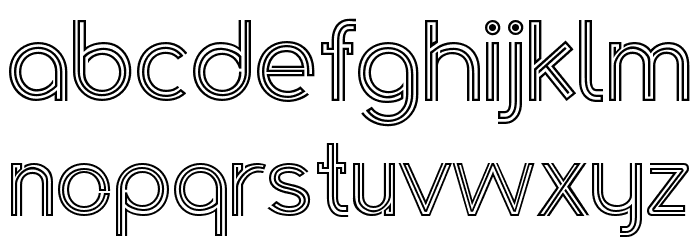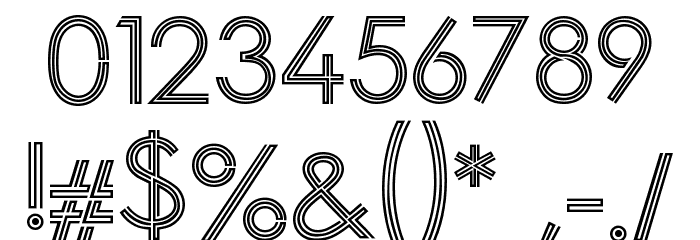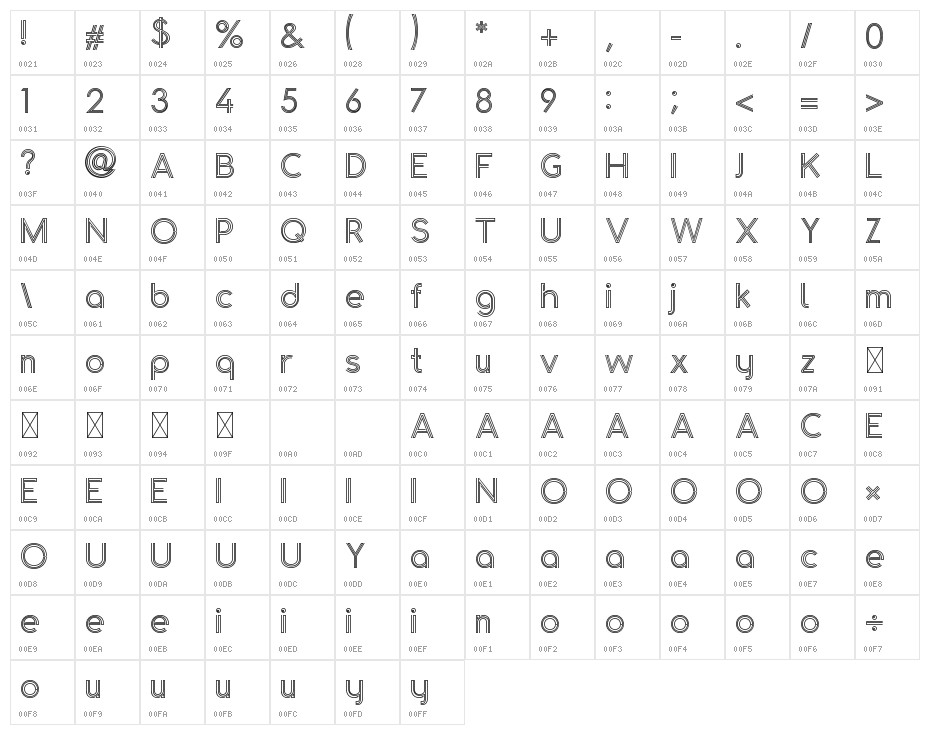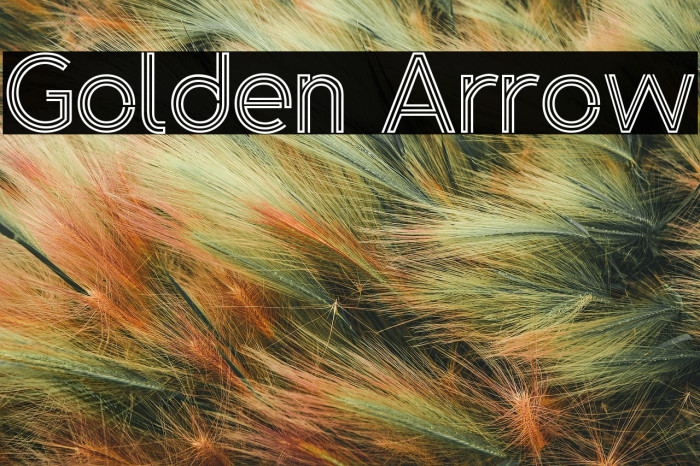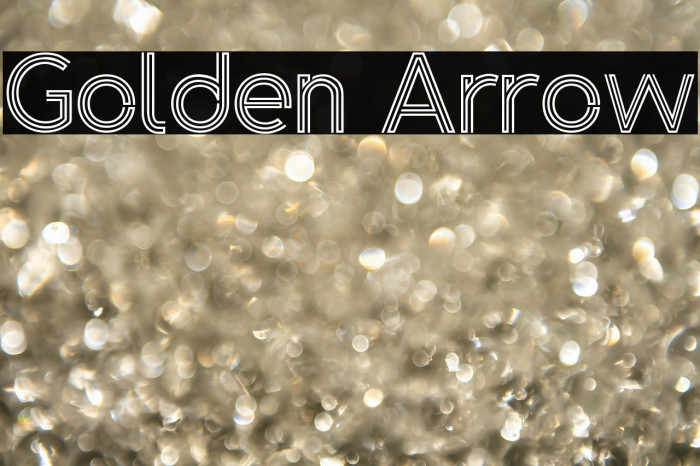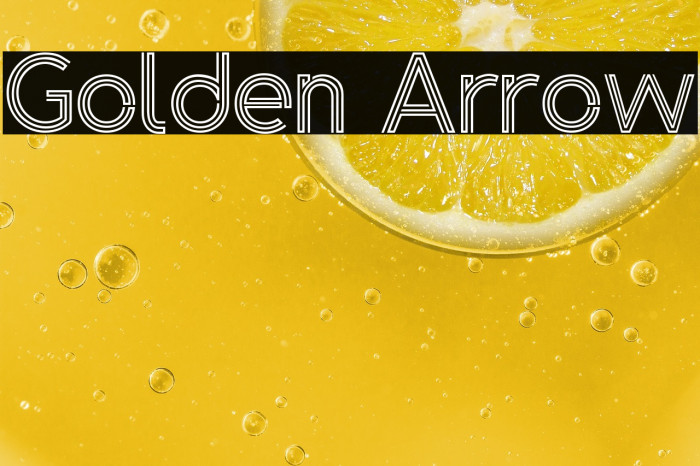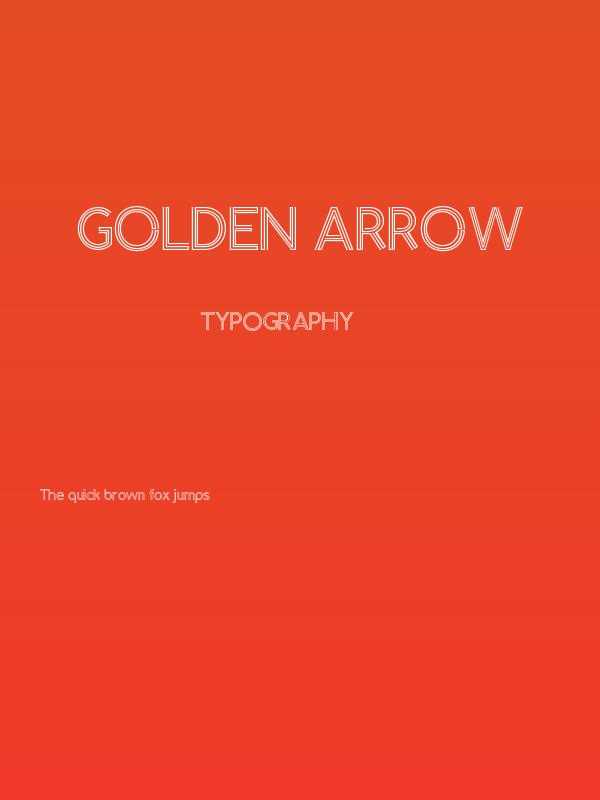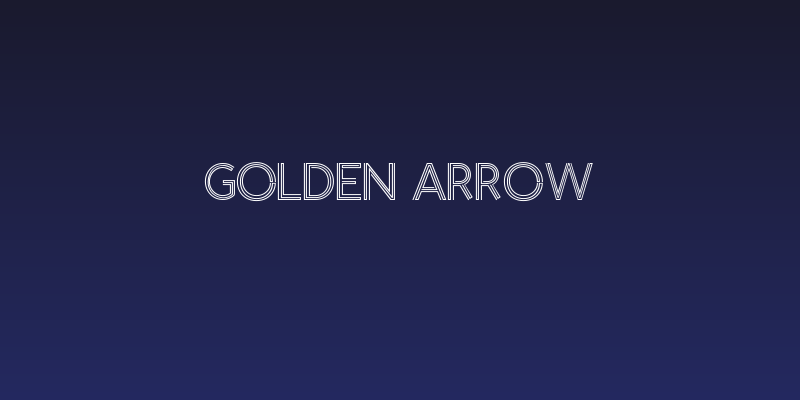
Golden Arrow Font
This font features a unique, outlined style with a modern and geometric appearance. The characters are constructed with multiple parallel lines, creating a sense of depth and dimension. The uppercase and lowercase letters maintain a consistent width, while the numbers and special characters follow the same design principle. The overall look is clean and structured, making it suitable for projects that require a contemporary and eye-catching typeface. The spacing between characters is normal, allowing for readability while maintaining its distinct style.
A modern, outlined font with geometric and dimensional characteristics.
- Font: Golden Arrow
- Proposed Projects: Ideal for branding, posters, headlines, and any design that requires a modern and striking visual impact.